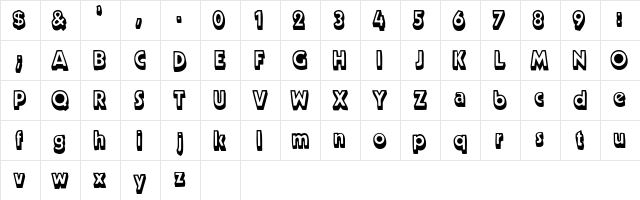
BeurketShadowSSK Bold
Design Context for BeurketShadowSSK Typeface
BeurketShadowSSK is built around its visual character rather than neutral utility — its distinctive forms are designed to make an impression at display sizes. The heavy weight commands attention and anchors typographic hierarchies.
Font Pairing: Pair with a clean neutral sans-serif for body copy to let BeurketShadowSSK's character lead without overwhelming the composition.
Pro Tip: Use BeurketShadowSSK exclusively at display sizes — it was designed to be seen, not read at length. Let a neutral companion handle body copy.